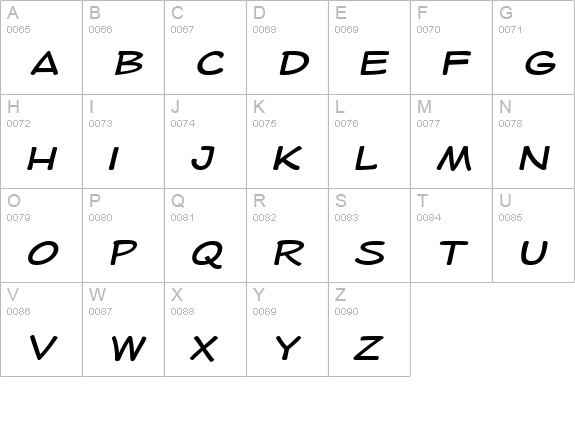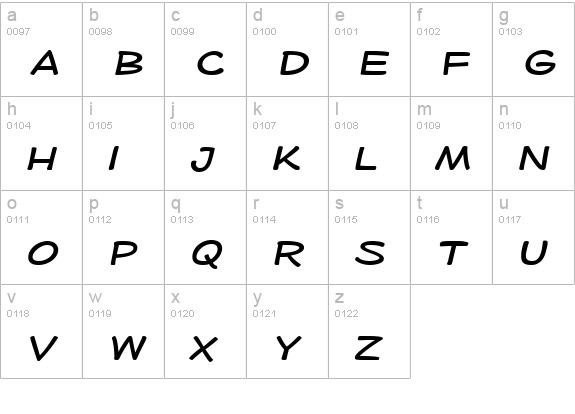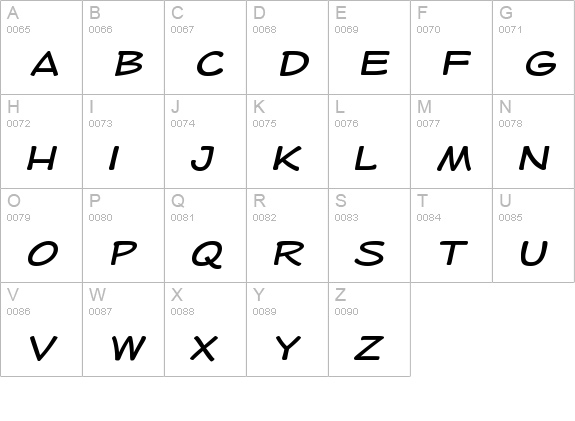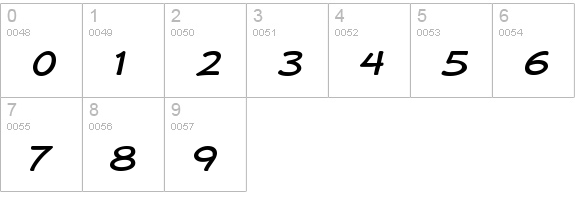
Heroid Font Details
Heroid font is a visually striking typeface that exudes elegance and sophistication. Its sleek lines and modern aesthetic make it perfect for a wide range of design projects, from branding to editorial layouts. The clean and crisp letterforms of Heroid font ensure readability while adding a touch of class to any composition. What sets Heroid font apart is that it is available for free download at FontsMarket.com. This means that designers and creatives can easily access this beautiful font without any cost, making it a valuable resource for both personal and commercial use. Whether you're creating a logo, website, or print materials, Heroid font will elevate your design with its timeless appeal. Embrace the versatility and style of Heroid font today by downloading it for free at FontsMarket.com. Let this elegant typeface enhance your projects and bring a touch of sophistication to your work.